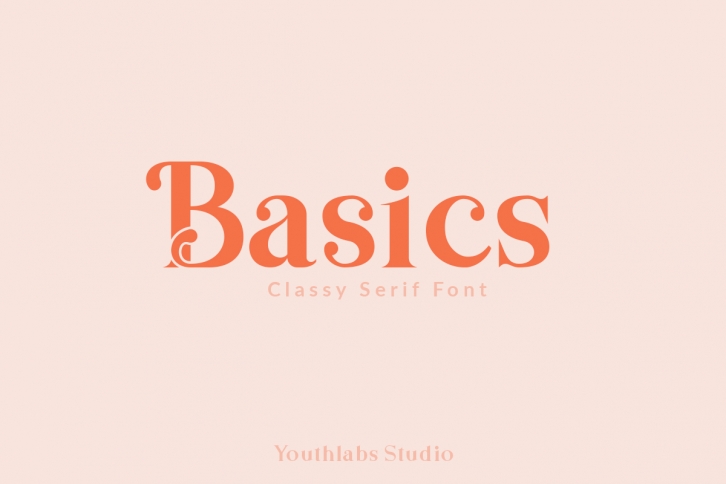
Introducing Basics Serif Font - A Brand New Serif Font with Fancy Curves, More Alternative Character, and Multilingual Support
Basics Serif Font Inspired by Fancy and Vintage Typography. Basics Serif Font is a very versatile font. you can use this font to various design. Basics can improve more than 250 alternates character where is Alternate 1 - Alternate 10 Character